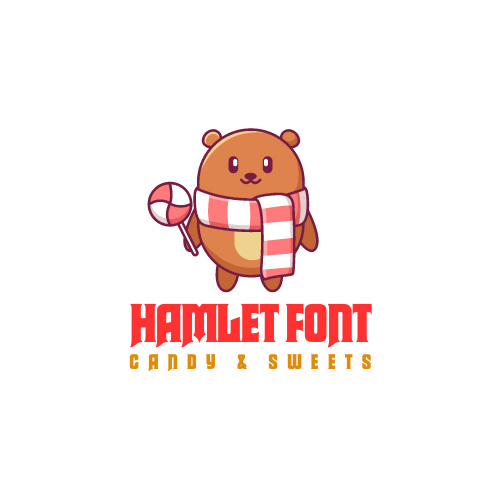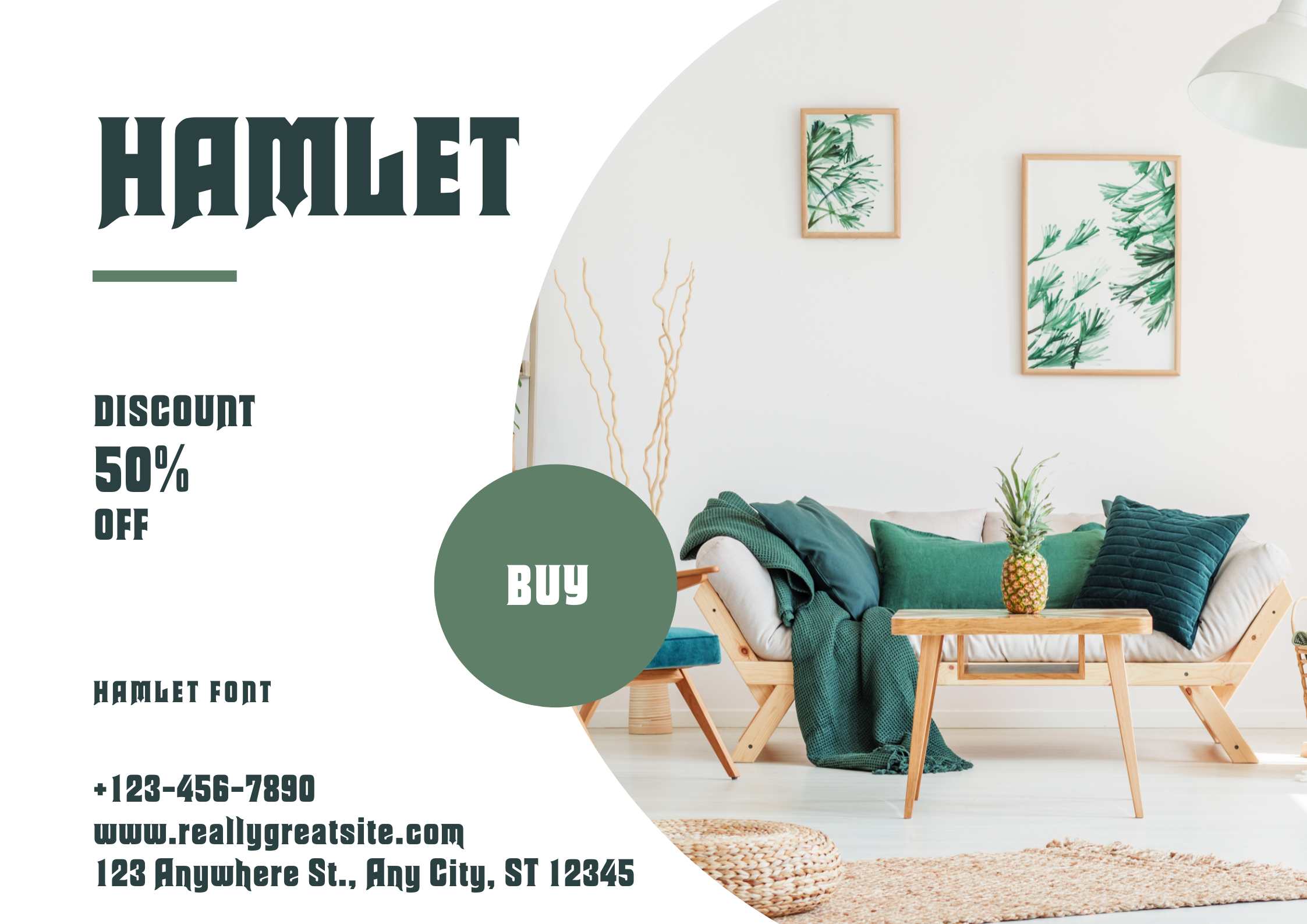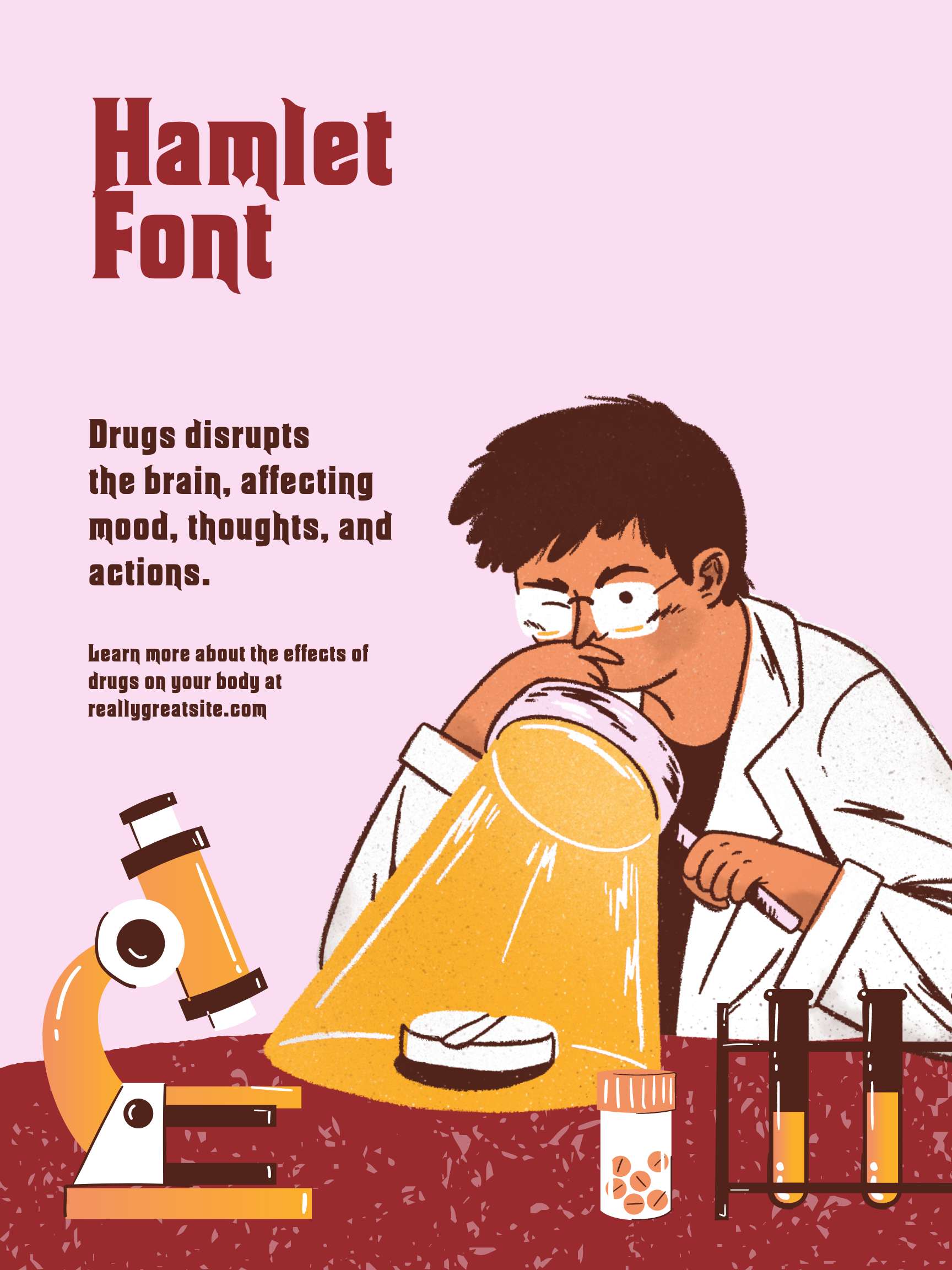
The font Hamlet is a good choice for any type of design that you want to be fun and playful. The font subfamily is Regular, which means that it is the standard version of the font.